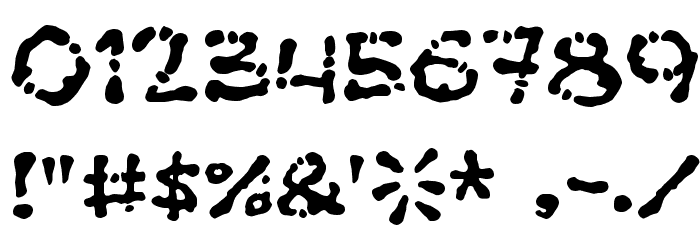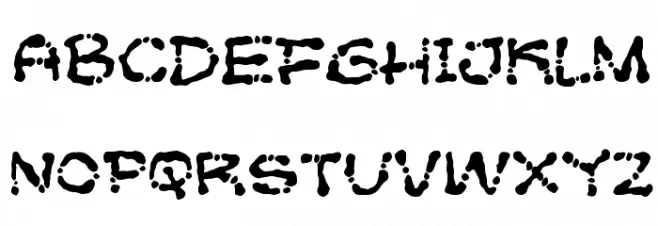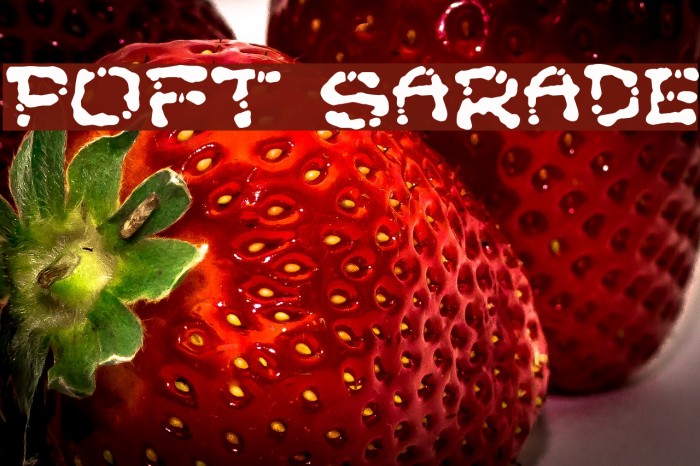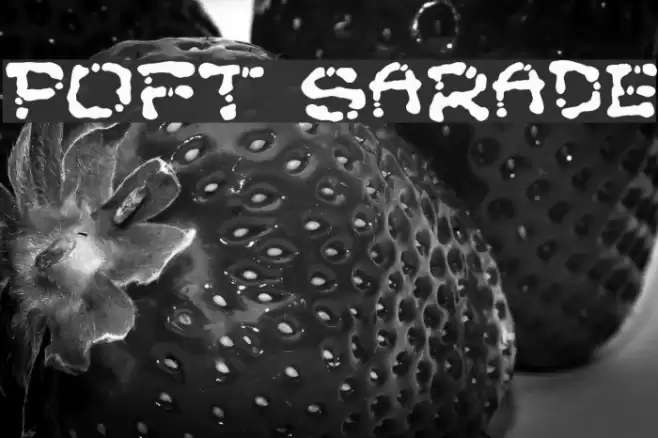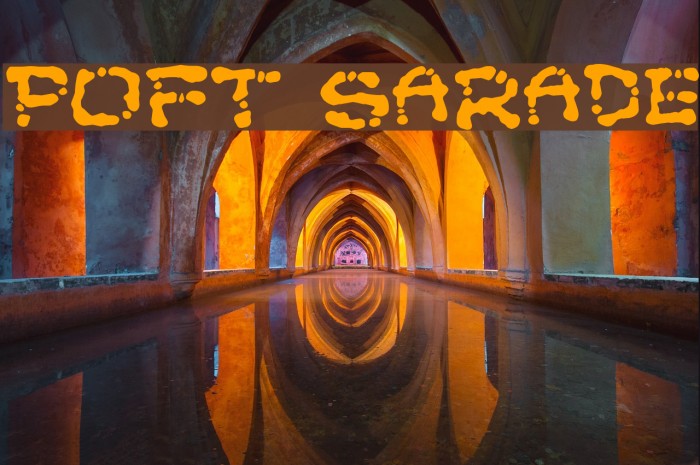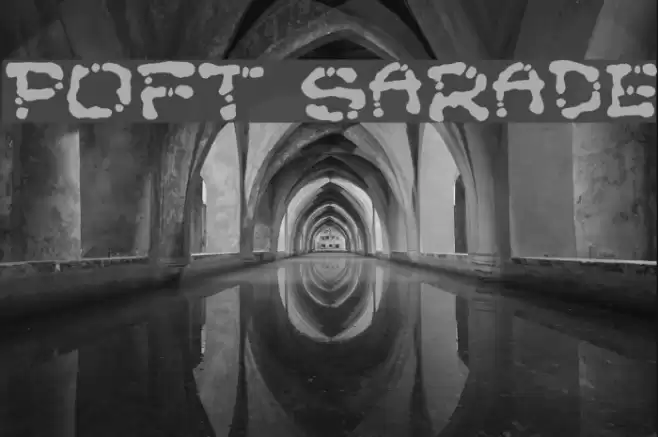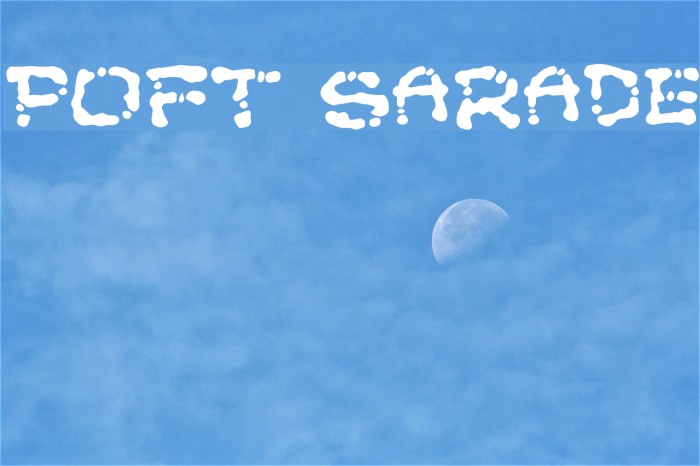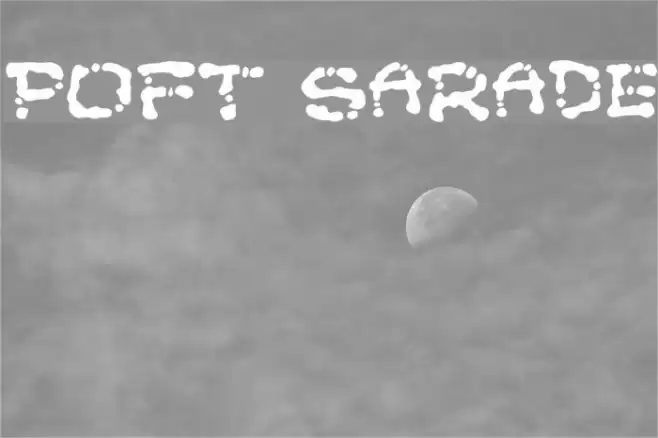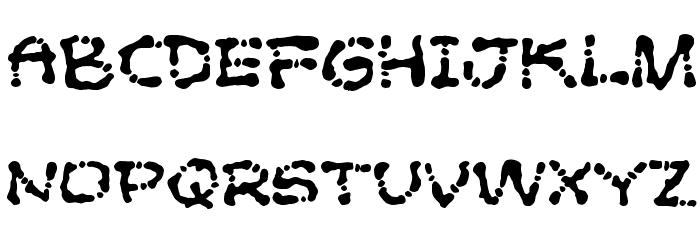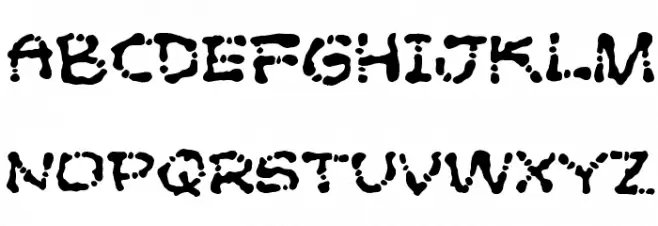
Poft Sarade Font
✎ Dotted
| カテゴリ | Dotted |
| 全体的なスタイル | Artistic, Playful |
| おすすめプロジェクト | Ideal for children's book covers, playful branding, artistic posters, and creative event invitations. |